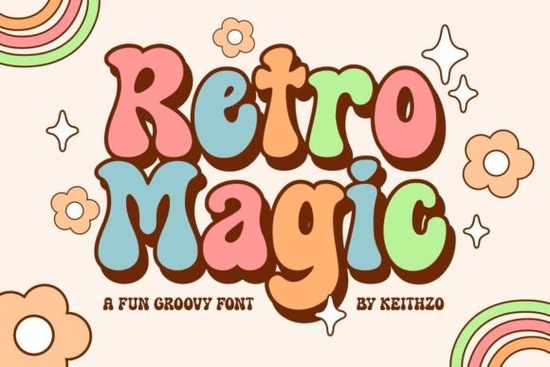
Retro Magic Font is a retro display typeface that brings a playful, romantic, and slightly whimsical feel to any design project. Whether you're working on greeting cards, social media graphics, or product packaging, this font delivers a charming vintage aesthetic without looking outdated. If you're a designer, crafter, or small business owner looking for a typeface that feels both nostalgic and fresh, Retro Magic Font deserves a closer look.
What Makes Retro Magic Font Stand Out?
There are hundreds of retro fonts available online, so what makes this one different? The answer lies in its versatility. Retro Magic Font works beautifully across a wide range of applications from bold headlines to delicate greeting card sentiments. Its letterforms carry a soft, rounded quality that feels inviting and warm, making it ideal for projects that need a romantic or elegant touch.
Unlike some display fonts that are hard to read at smaller sizes, Retro Magic maintains good legibility even when used in shorter body text or subheadings. That balance between style and function is something many designers struggle to find.
Who Should Use This Font?
This font is a solid choice for anyone working in visual design or handmade products. Here are some specific use cases where it really shines:
- Print-on-demand sellers Use it on mugs, tote bags, t-shirts, and posters for a vintage-inspired product line.
- Greeting card designers Its romantic feel makes it perfect for Valentine's Day, anniversaries, and wedding stationery.
- Small business branding Cafés, bakeries, and boutique shops can use it for logos, menus, and signage.
- Social media creators Instagram quotes, YouTube thumbnails, and Pinterest pins all benefit from a retro display typeface.
- Scrapbookers and crafters Add a nostalgic flair to digital or printed scrapbook pages.
How Does It Compare to Other Display Fonts?
If you're browsing Creative Fabrica's library, you'll find several display fonts worth comparing. For example, Marshmellow Font offers a bouncy, playful vibe that leans more cartoonish. It's great for kids' products or party invitations but might feel too casual for elegant branding.
On the other hand, Real Wavy Stacked Font takes a completely different approach with its layered, stacked lettering style. It's eye-catching for posters and apparel but requires more design effort to use effectively.
If you want a font duo that combines a script with a complementary sans-serif, Selina Daniel Duo Font and Rainbow Darling Duo Font both offer strong pairing options. Retro Magic, by contrast, works well as a standalone display font or paired with a clean sans-serif of your choice.
What Projects Work Best With a Retro Display Font?
Retro display fonts like this one tend to perform best in contexts where you want to capture attention quickly and convey personality. Think about the last time a vintage-style logo or packaging caught your eye chances are, it used a display typeface with character and warmth.
Here are some project ideas to get started:
- Wedding invitations and save-the-date cards
- Event posters for markets, fairs, and local shows
- Product labels for handmade candles, soaps, or food items
- Blog headers and newsletter graphics
- Digital planners and stickers
- Custom apparel mockups for Etsy or Shopify stores
Tips for Getting the Most Out of Retro Magic Font
To make your designs look polished and intentional, keep these tips in mind:
- Pair it wisely. A clean sans-serif like Montserrat or Poppins balances the decorative nature of Retro Magic without competing for attention.
- Watch your spacing. Display fonts often need manual kerning adjustments, especially in headlines and logos.
- Use it sparingly. One or two words in a display font create impact. Using it for long paragraphs makes text hard to read.
- Test at multiple sizes. What looks great at 72pt might lose detail at 24pt. Always preview your designs at the intended output size.
- Check glyph support. Some display fonts include alternate characters, ligatures, or multilingual support. Open the glyph panel in your design software to explore what's available.